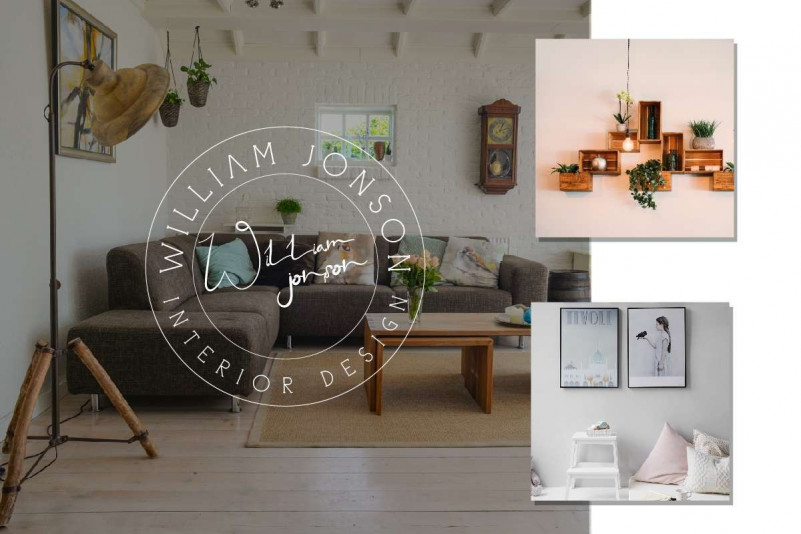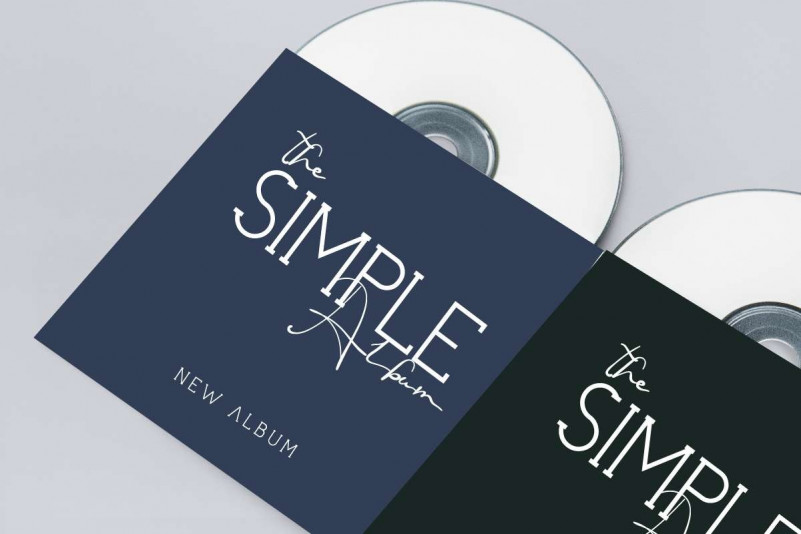
Amanda Vinola Handwritten Font
Fonts – Amanda Vinola is a charming font family. As usual, it is a combo of an informal script, two handmade sans variations and some extras to spice up your designs. The script has many beautiful combinations of glyphs with many variations of style, binder and swash, which you can mix and mix for more interesting effects. The basic lines of dance make it very casual and full of personality, so it is a great addition to any design project.
This font is included in modern script types so perfect for imaging your personal brand and every great project, such as logos, invitations, stationery, wedding designs, social media posts, advertisements, product packaging, product design, labels, photography, watermarks, special events, and more!.